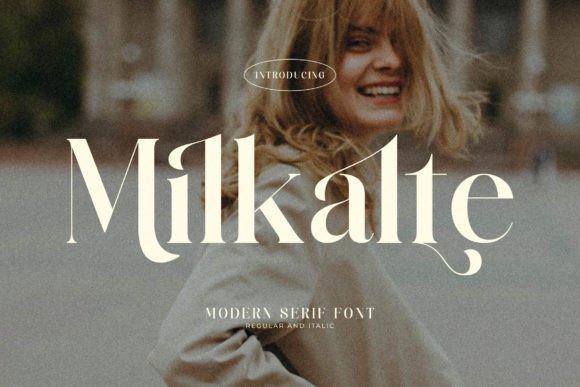
Step into the captivating world of Milkalte, a masterpiece among serif fonts, meticulously crafted by Storytype Studio to grace the digital realm in 2013. Its name, an enchanting blend of milk and chocolate, whispers of creamy indulgence and timeless allure.
Milkalte is more than just a font; it's an evocative tapestry woven with the threads of sophistication and charm. Its graceful curves and elegant contours dance across the page, captivating the eye and leaving an imprint on the soul. Each letterform exudes a distinct personality, whispering tales of untold stories and inviting you to craft your own unique narrative.
Whether you're an artist seeking to leave an unforgettable mark, a designer yearning for a touch of timeless elegance, or a creative professional seeking to elevate your projects to new heights, Milkalte stands as your trusted companion. Its versatility knows no bounds, seamlessly adapting to an array of creative endeavors.
Imagine your brand adorned with the sophisticated allure of Milkalte, its every letter a beacon of professionalism and style. Let your words take flight on the wings of Milkalte, each stroke imbued with an ethereal grace that captures hearts and minds.
Indulge in the timeless beauty of Milkalte and witness the transformation of your creative visions. Its refined elegance will elevate your designs to new realms, leaving an enduring legacy of excellence and inspiration.
Embrace the magic of Milkalte, where classic serif charm meets modern ingenuity, and prepare to captivate your audience with unforgettable designs.